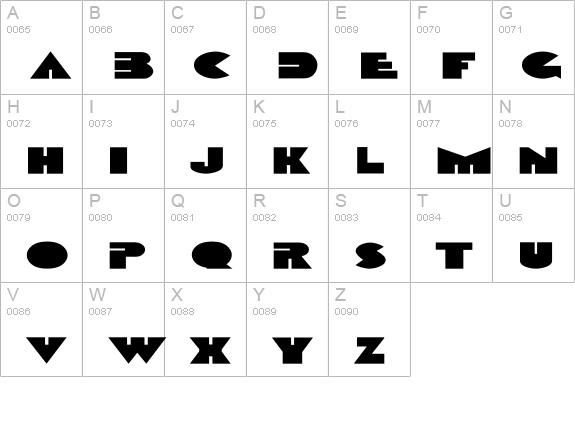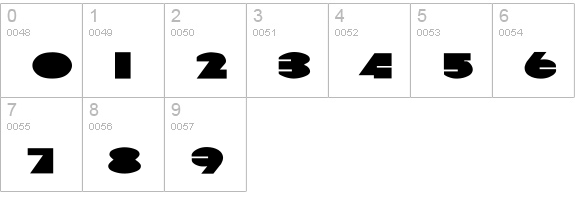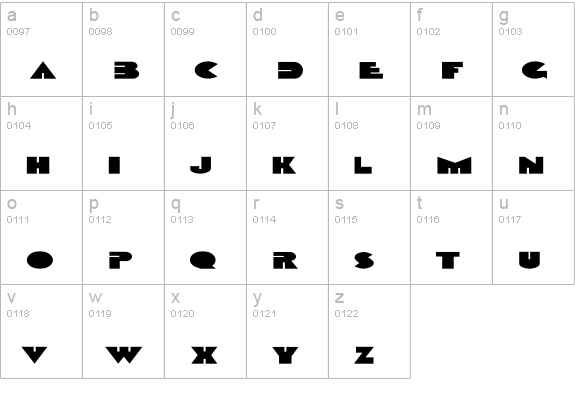
Devendra Ex Font Details
Devendra Ex font is a modern and stylish typeface that exudes elegance and sophistication. Its sleek and clean lines make it perfect for a wide range of design projects, from branding to editorial design. The font features a unique combination of sharp edges and smooth curves, giving it a distinct and eye-catching look. What sets Devendra Ex font apart is not just its aesthetics, but also the fact that it is available for free. You can easily download this versatile font at FontsMarket.com and start using it in your projects right away. Whether you're working on a logo, website, or print materials, Devendra Ex font will elevate your design and make a lasting impression. Don't miss out on the opportunity to add this exceptional font to your collection. Download Devendra Ex font for free today and take your design projects to the next level!